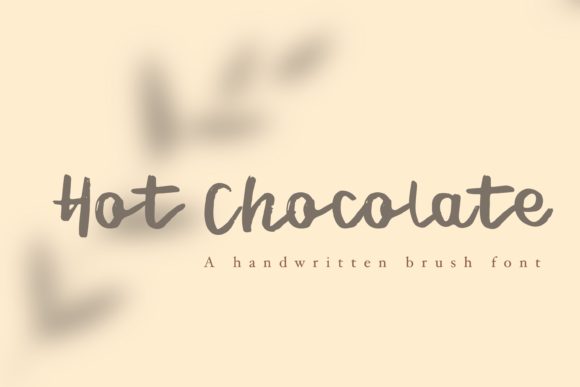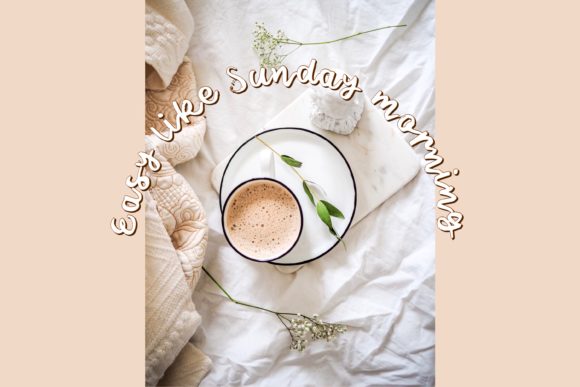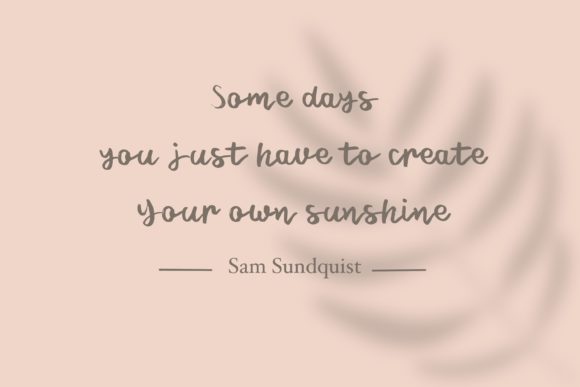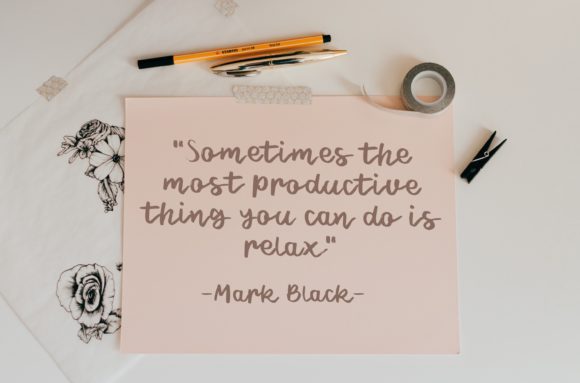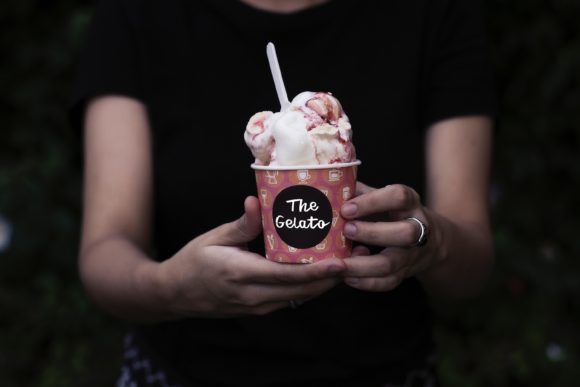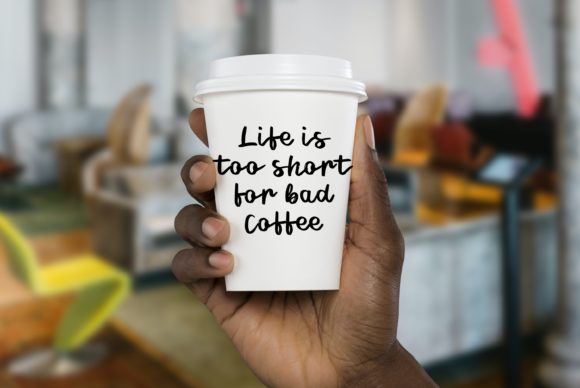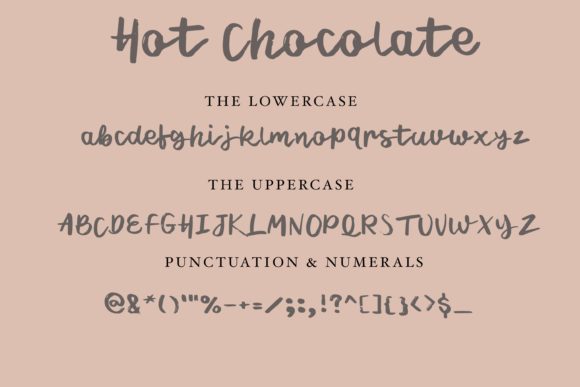
Hot Chocolate Font
Hot Chocolate is a magical handwritten font carefully created with a touch of elegance. This enchanting font will turn any creative idea into a true standout.